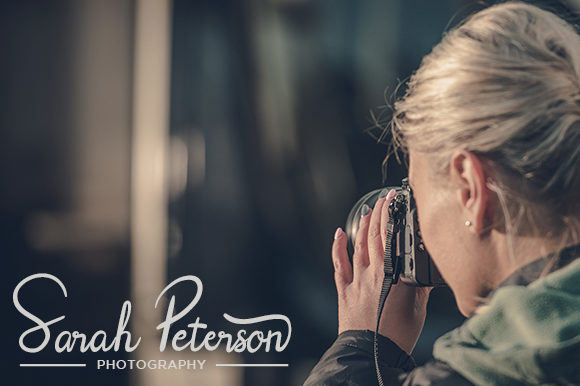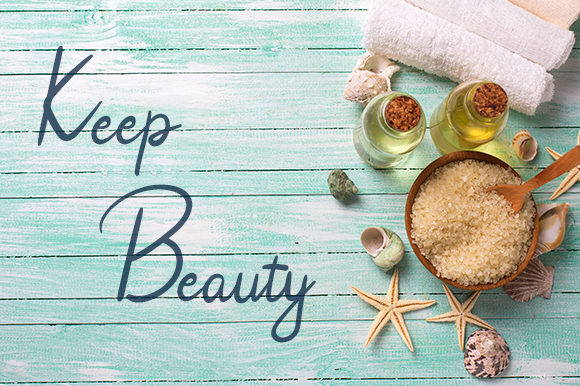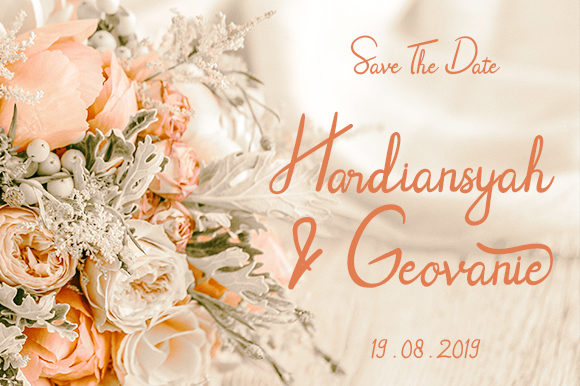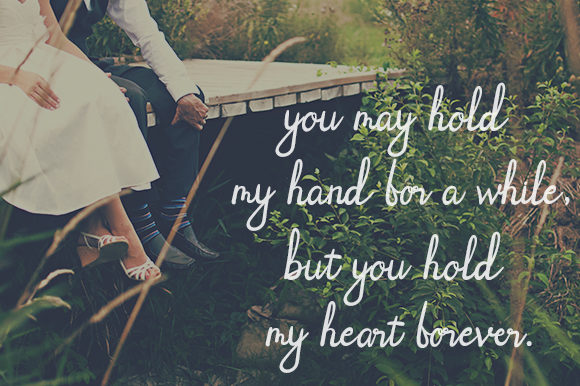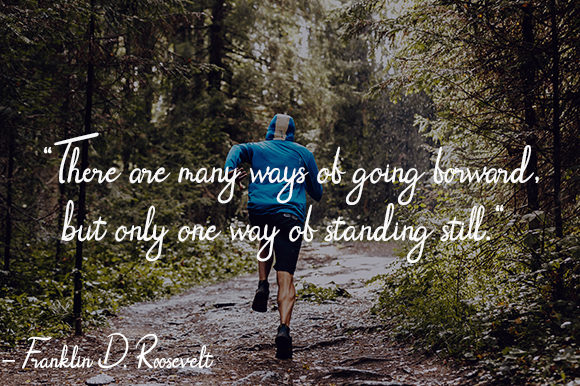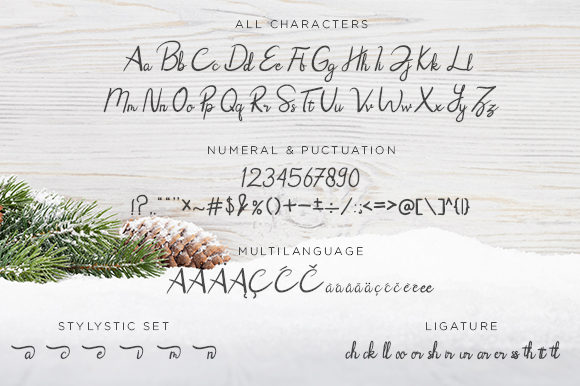
Introduction to Rhoselinna Font
The Rhoselinna is an amazing handwritten font.
It has an elegant style and will add an upscale and chic look to every design It’s perfect for logo’s, branding projects, homeware designs, product packaging, mugs, quotes, posters, shopping bags, and every other design which needs a handwritten touch.
Key Features of Rhoselinna Font
Why Choose Rhoselinna Font?
Rhoselinna Font offers exceptional quality and versatility, making it a valuable addition to your design toolkit. Whether you’re creating for personal projects or commercial use, Rhoselinna Font delivers professional results.